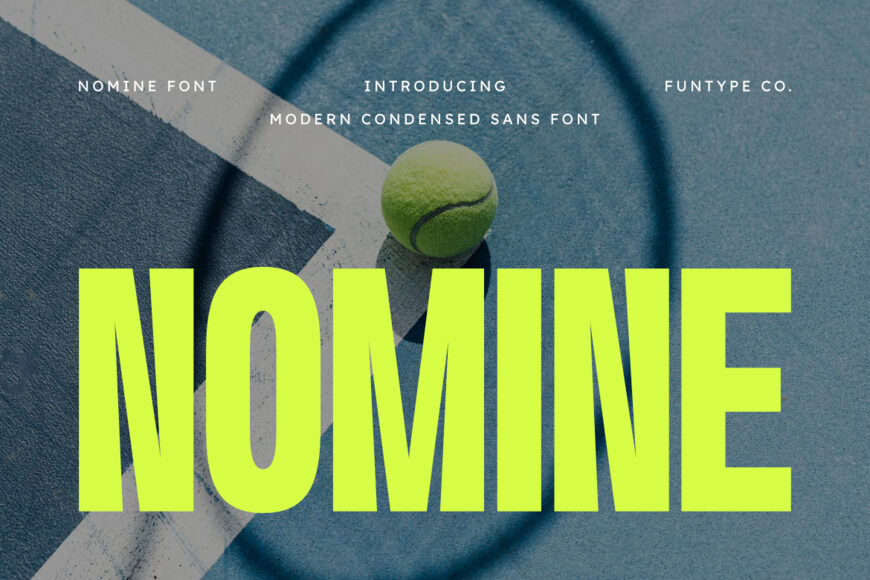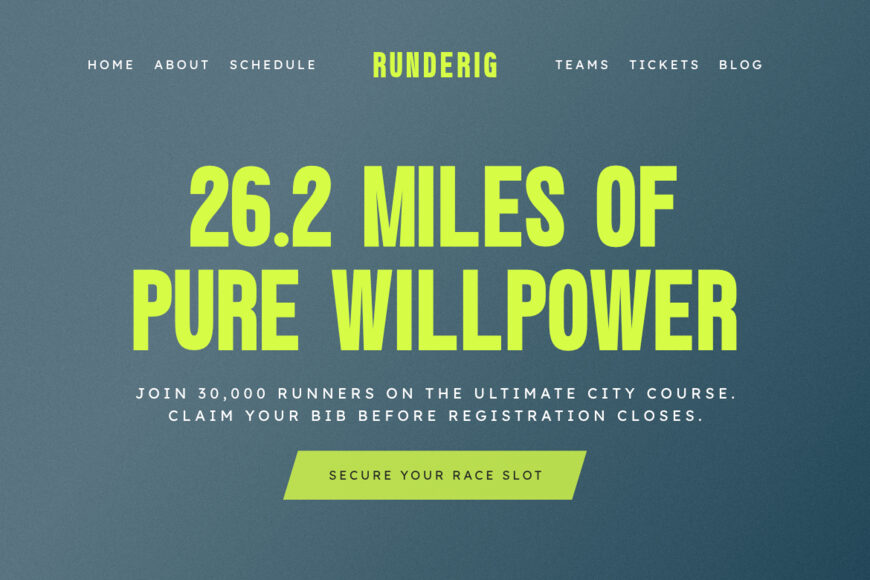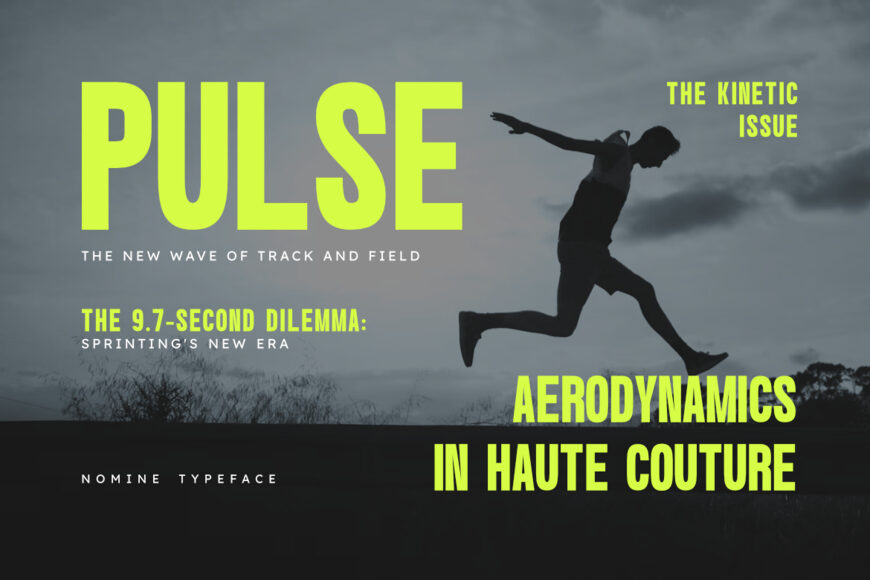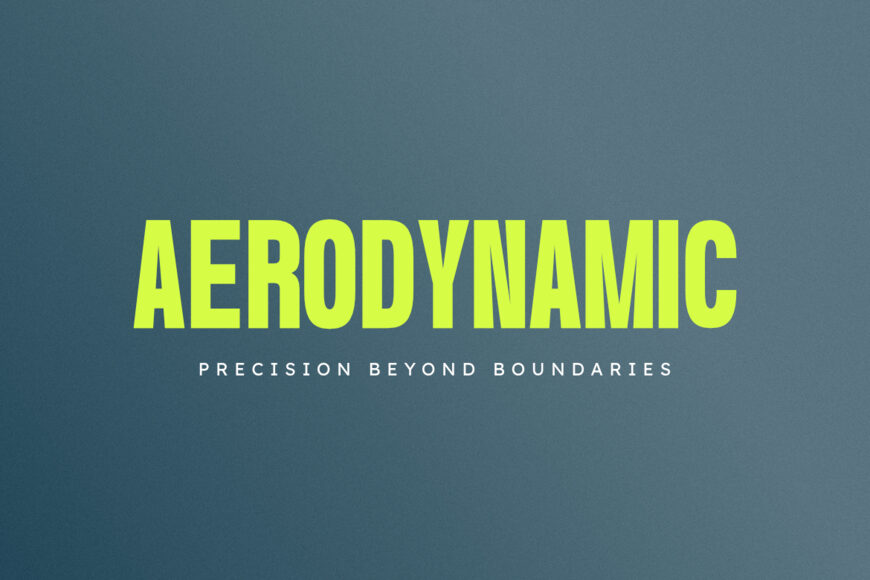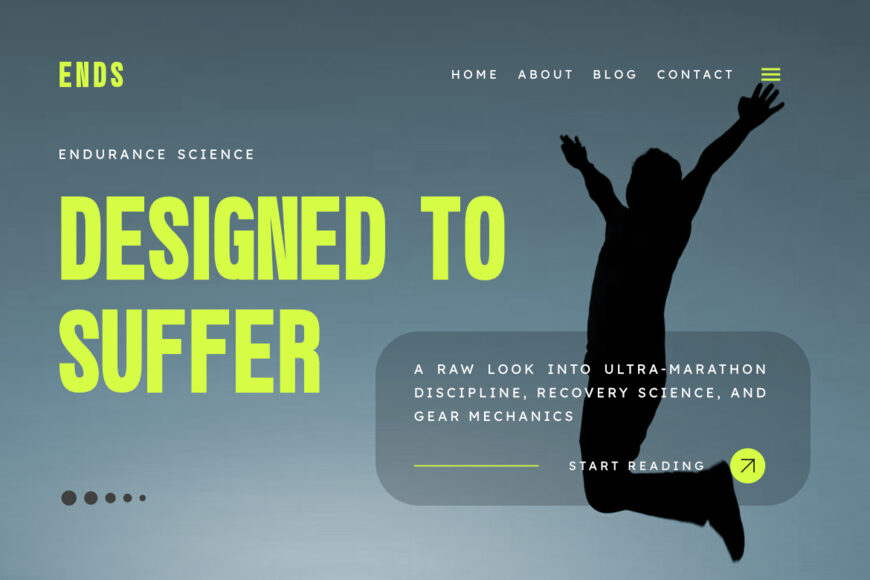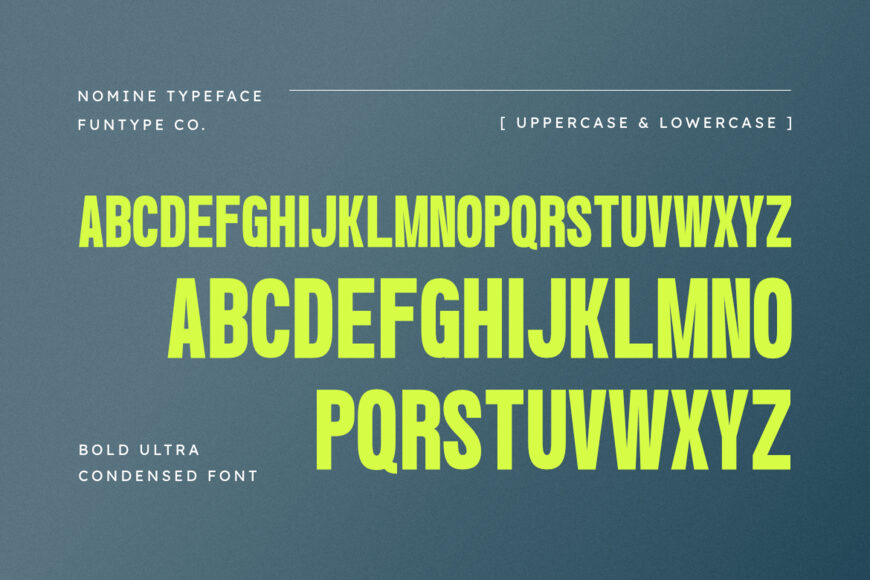
Nomine is a bold, high-impact, and modern condensed sans serif font, engineered to bring a powerful athletic presence, space-saving narrow geometry, and energetic display aesthetic to contemporary design layouts.
Featuring a tall vertical profile, heavy block forms, and sharp angular notched cutouts, Nomine introduces a dynamic sports broadcast identity, high-energy editorial publishing, tournament event promotion, and prominent digital presentation designed to claim absolute visual focus.